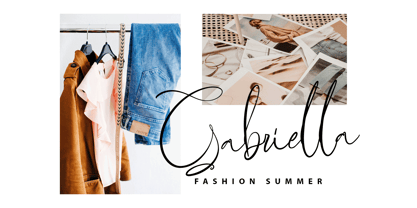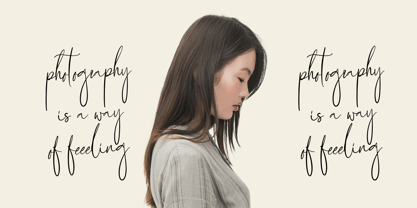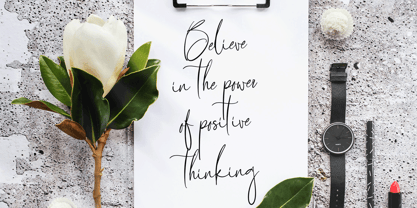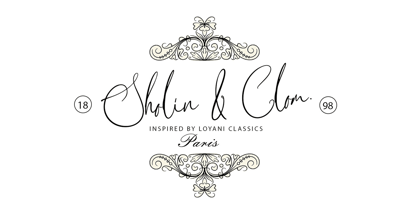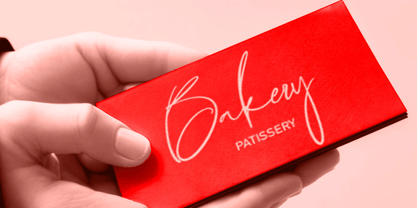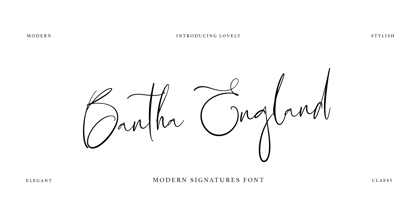
Bantha England
by NH TypeStudio
The Bantha England Font Family was designed by Hadi Nasrul and published by NH TypeStudio. Bantha England contains 1 styles. More about this family
Bantha England is a stylish script font that exudes artistic flair and contemporary elegance. Featuring fluid brush strokes, dynamic curves, and expressive letterforms, it captures the essence of hand-painted calligraphy with a modern twist. Ideal for logos, invitations, packaging, and social media graphics, it adds a creative and sophisticated touch to any design. With its natural flow and vibrant character, this font delivers both visual impact and versatility.